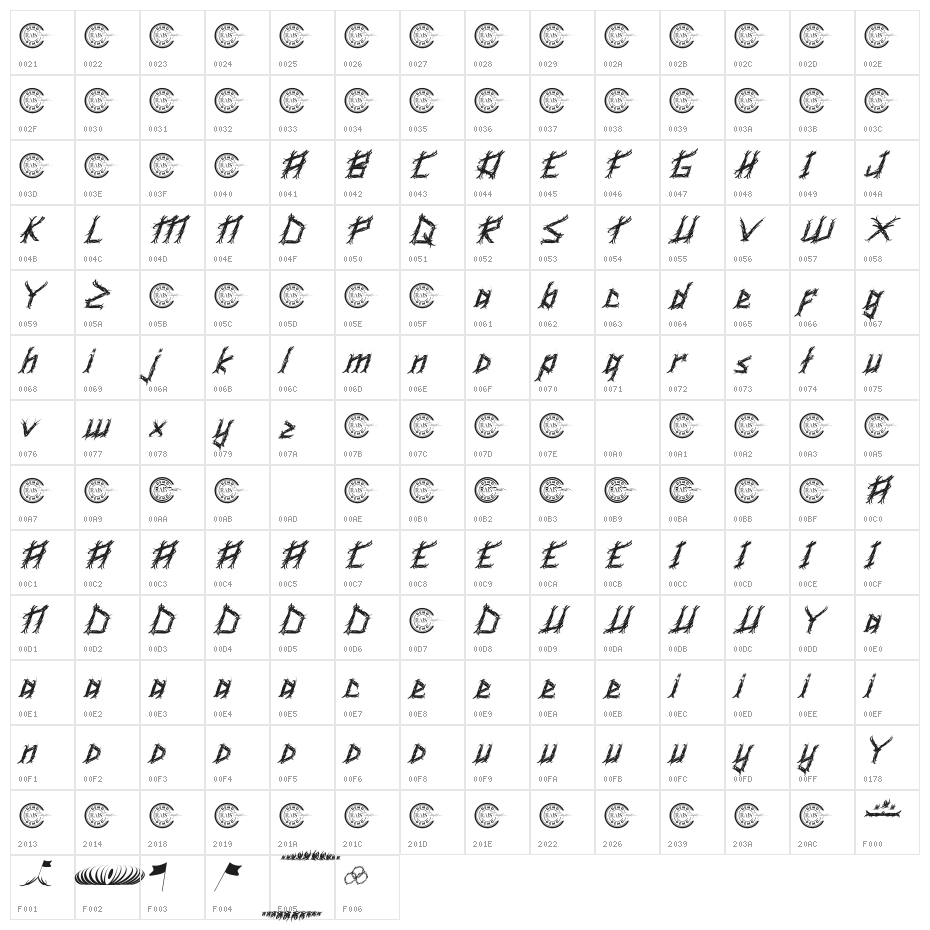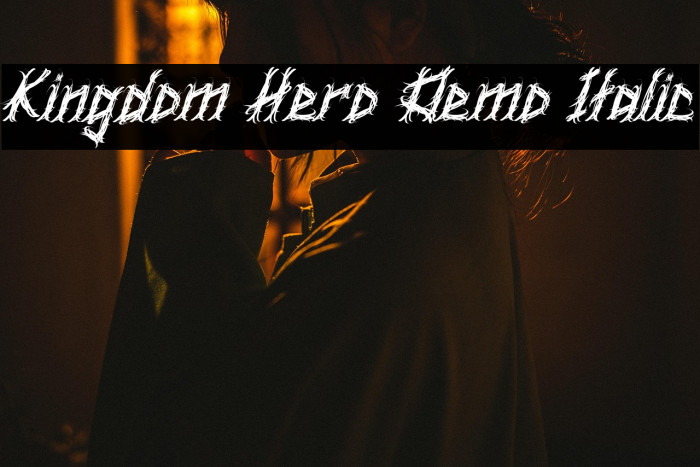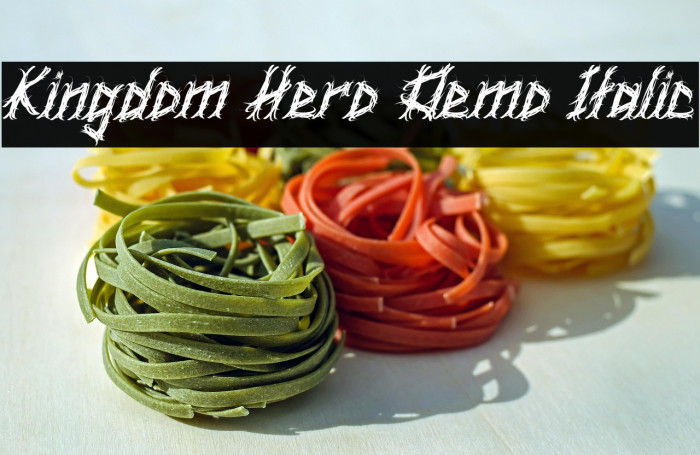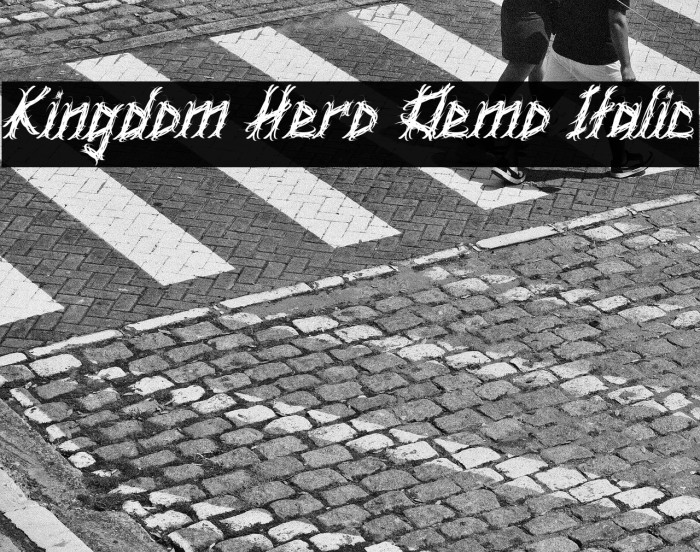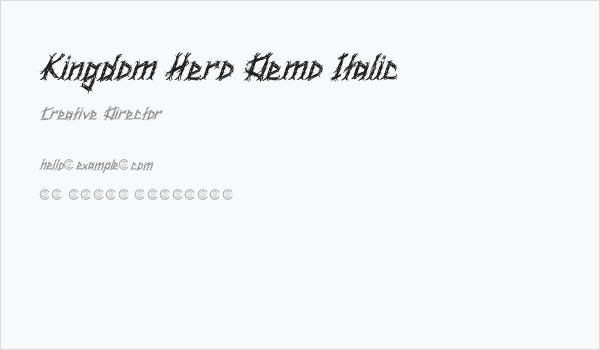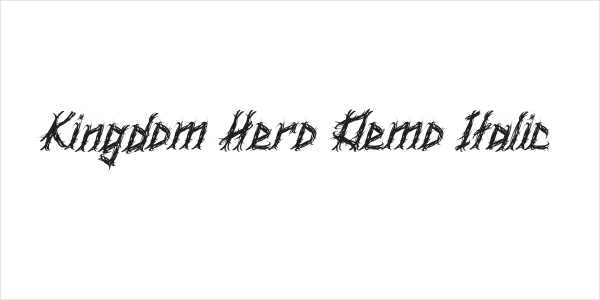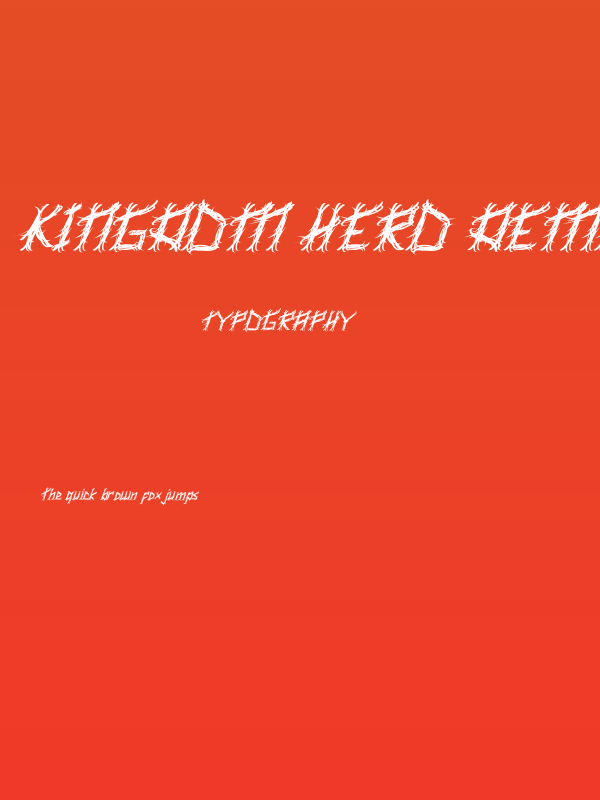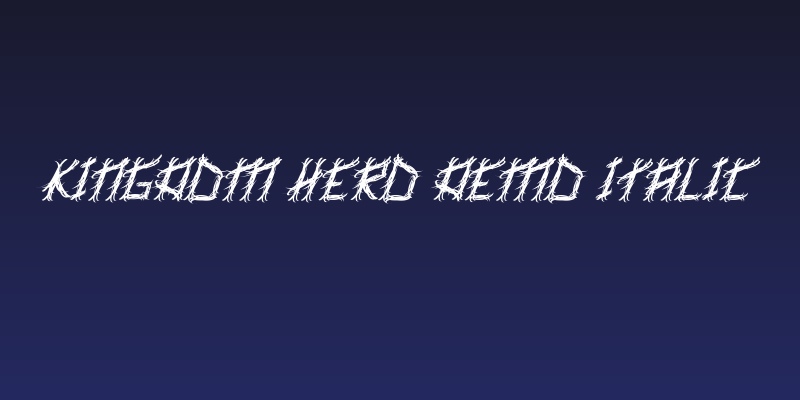
Kingdom Hero Demo Italic Font
Kingdom Hero Demo Italic Description
This font features a highly decorative and intricate design, characterized by its thorny and spiky appearance. The letters are crafted with an artistic flair, resembling twisted vines or barbed wire, giving it a unique and edgy look. The strokes are bold and dynamic, with an italic slant that adds a sense of movement and energy. Each character is distinct, with elaborate detailing that makes it stand out. The font's style is both aggressive and artistic, making it suitable for projects that require a strong visual impact.
| Proposed Projects | Ideal for album covers, posters, video game titles, and any project needing a dramatic and artistic touch. |